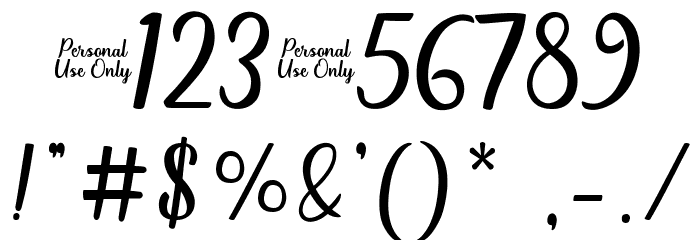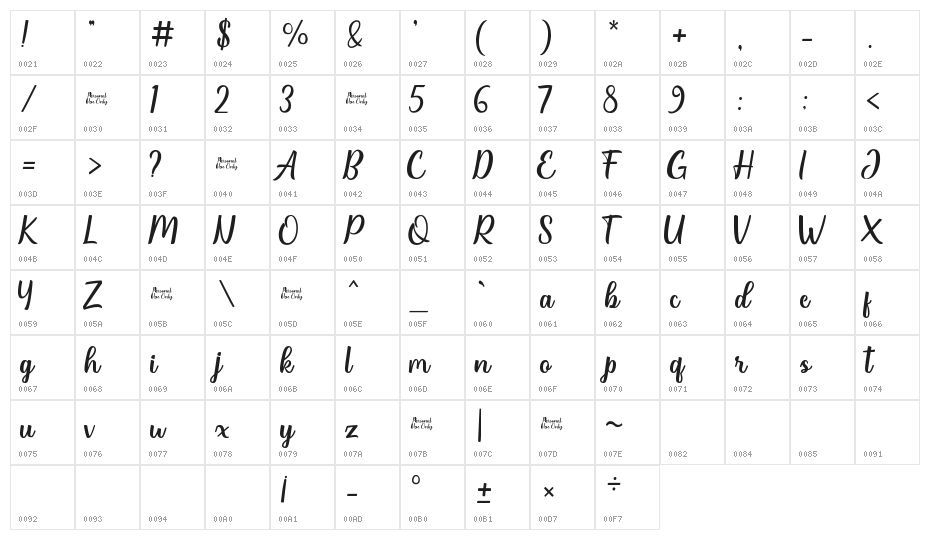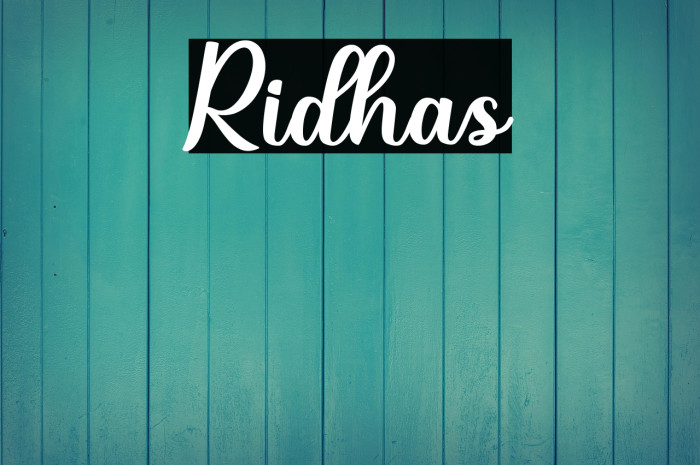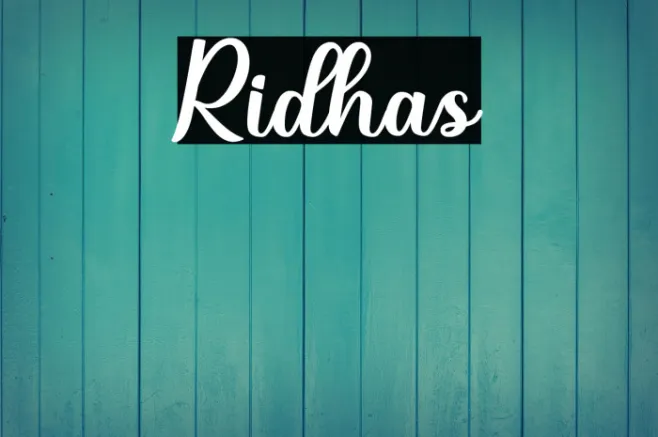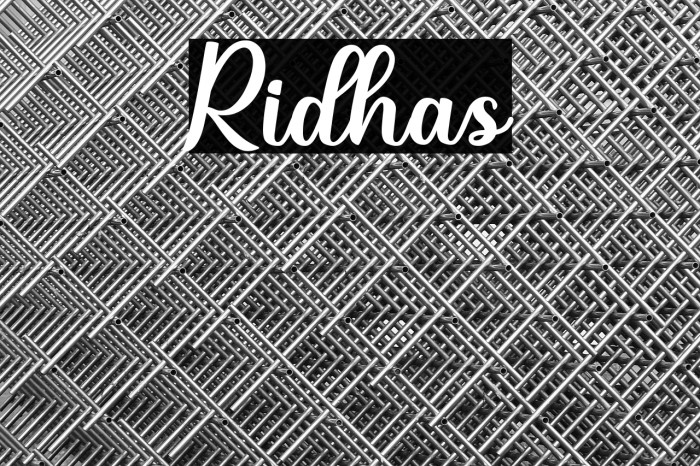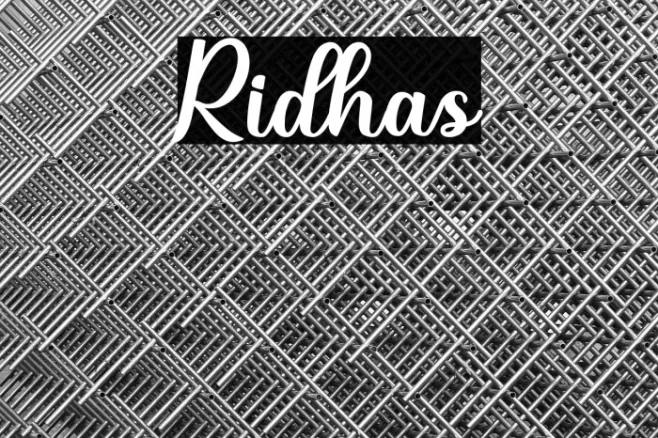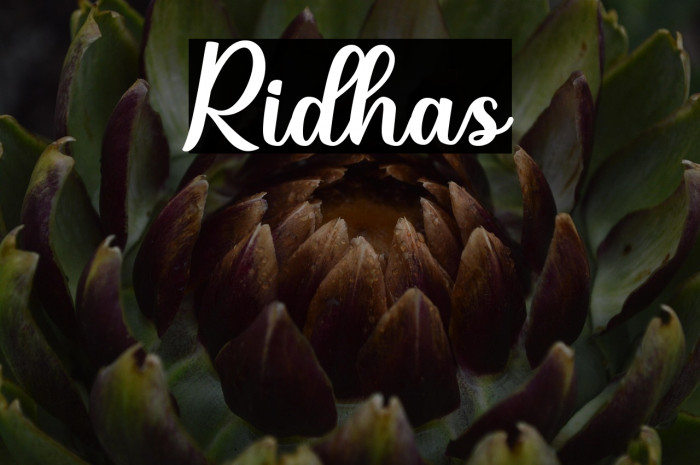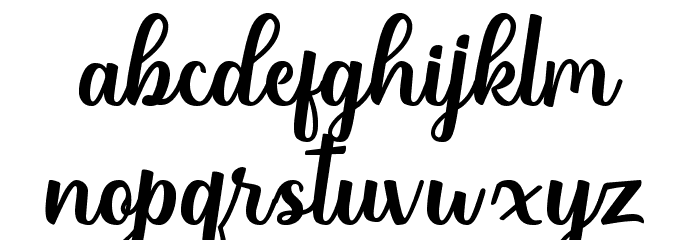
Ridhas Font
Ridhas Description
This font features a dynamic and flowing script style, characterized by its smooth, cursive strokes and elegant curves. The uppercase letters are bold and slightly slanted, giving a sense of movement and fluidity. The lowercase letters maintain a consistent flow, with some characters featuring distinctive loops and swashes. The numerals are clear and legible, matching the overall script style. Special characters are well-integrated, maintaining the font's cohesive appearance. This font exudes a sense of sophistication and creativity, making it suitable for various artistic and decorative applications.